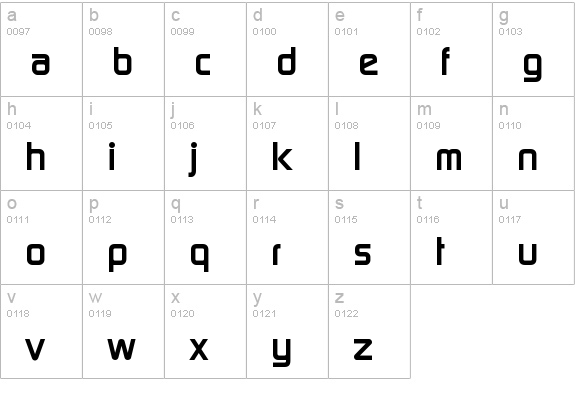
Modaerne Fed font is a modern and stylish typeface that exudes sophistication and elegance. With its bold and clean lines, this font is perfect for making a statement in your designs. Whether you're working on a logo, branding materials, or any other project that requires a touch of contemporary flair, Modaerne Fed has got you covered. The best part? Modaerne Fed font is completely free to download at FontsMarket.com. This means you can elevate your designs without breaking the bank. Don't miss out on the opportunity to add this versatile and eye-catching font to your collection today!